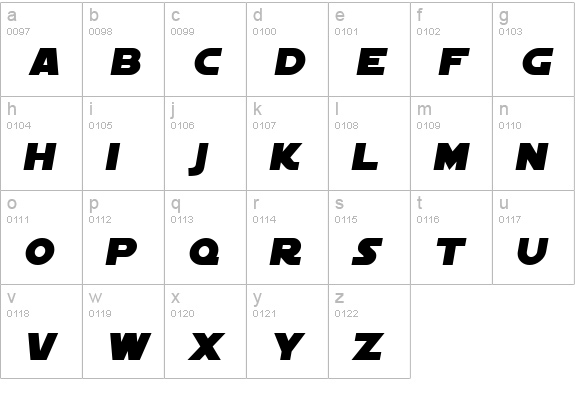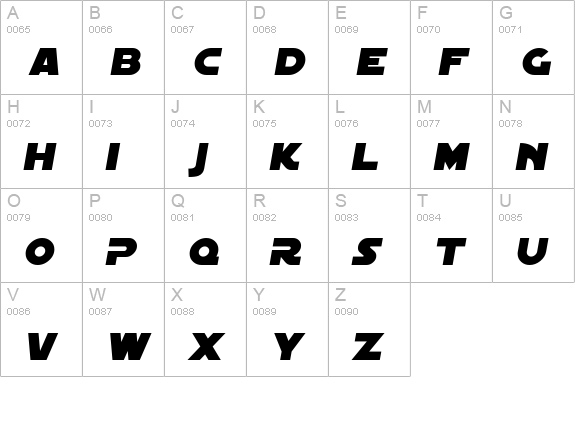
SF Distant Galaxy Italic Font Details
SF Distant Galaxy Italic is a distinctive, italic variant in the SF typeface family \xE2\x80\x94 well suited to design and typography projects.
Introducing SF Distant Galaxy Italic, a captivating and futuristic font that will transport your designs to a distant galaxy. This font exudes a unique blend of elegance and modernity, making it a perfect choice for any project that requires a touch of cosmic allure. With its sleek and slanted strokes, SF Distant Galaxy Italic adds a dynamic and dynamic feel to your text, creating a sense of movement and energy. Each letter is carefully crafted, with intricate details that evoke a sense of otherworldly mystery. Whether you're designing a science fiction book cover, a futuristic poster, or a space-themed website, SF Distant Galaxy Italic will bring your visions to life. Its versatility allows it to seamlessly complement both bold and delicate designs, making it a truly versatile typeface. But what sets SF Distant Galaxy Italic apart is not only its remarkable design but also its accessibility. This font is freely available to download at FontsMarket.com, allowing you to unleash your creativity without any limitations. Now, you can explore the vast reaches of the galaxy without worrying about any additional costs. So, why wait? Embark on a typographic journey to a distant galaxy with SF Distant Galaxy Italic. Download this captivating font today and let your designs transcend the boundaries of the known universe.